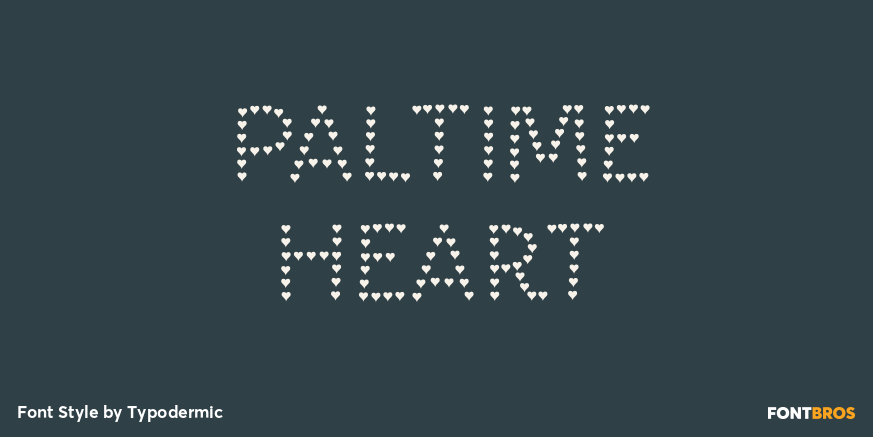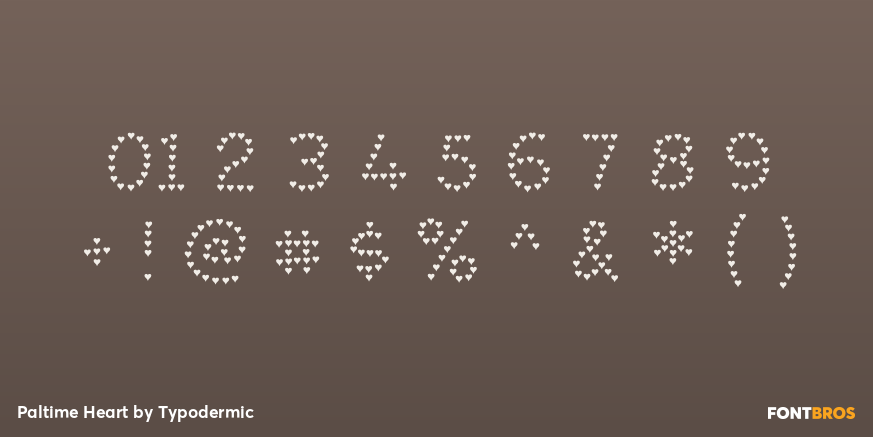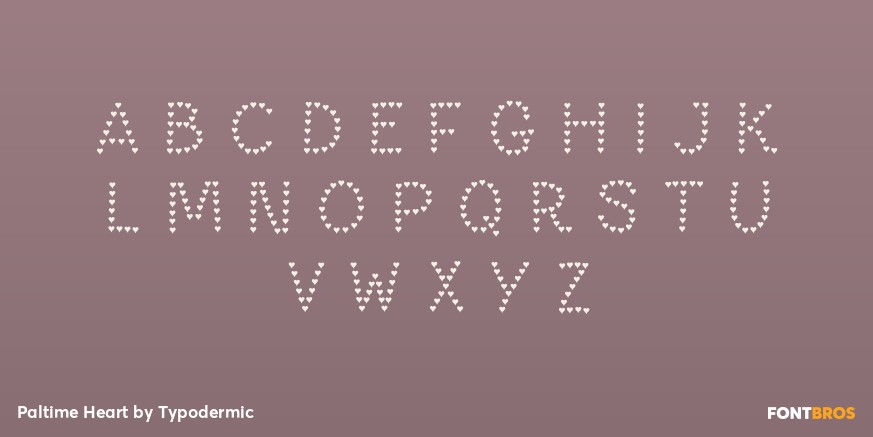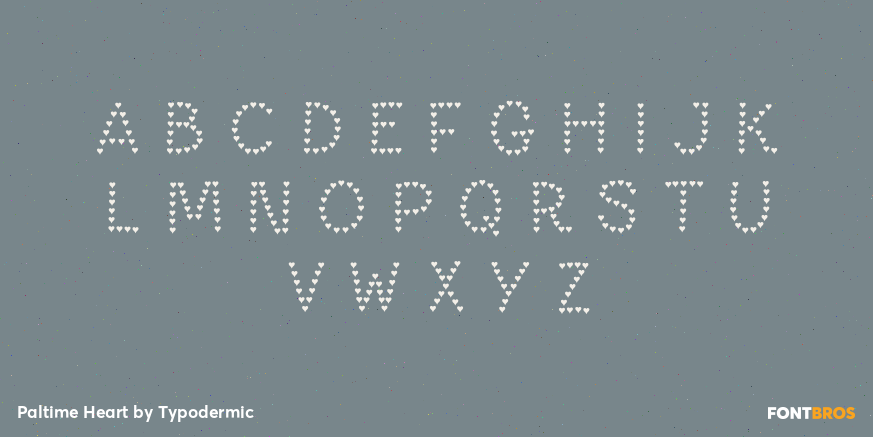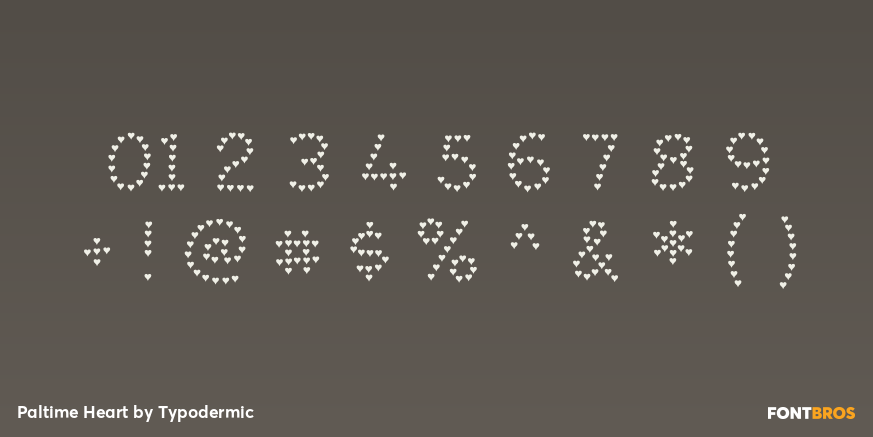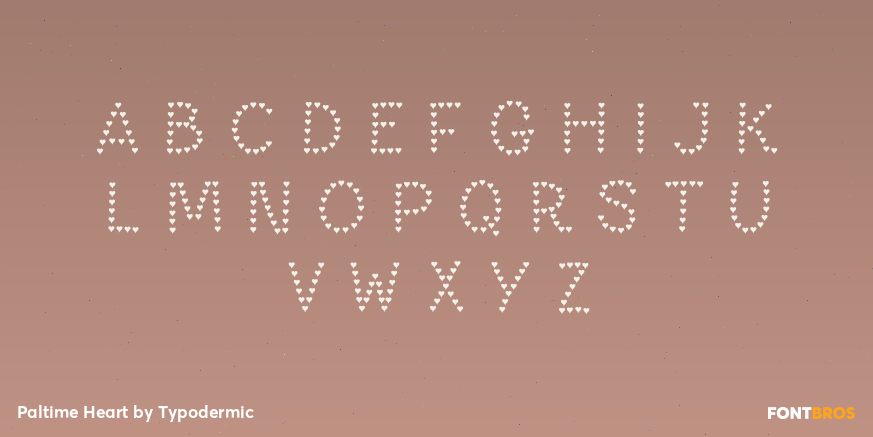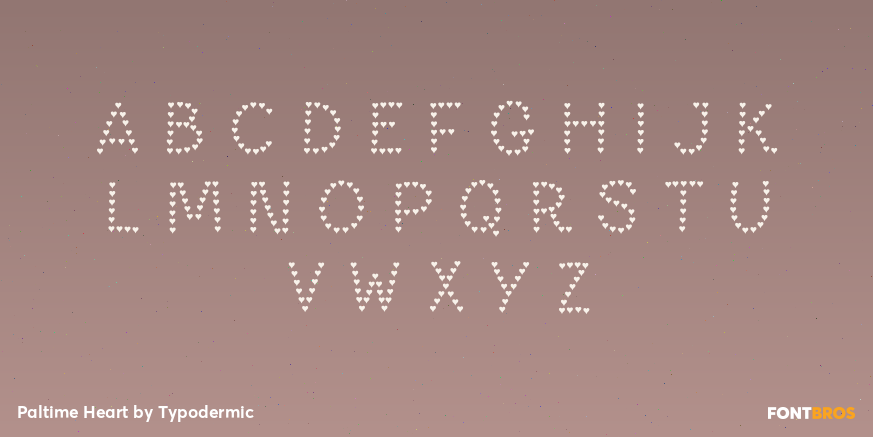
Paltime Heart
Buy NowPaltime Heart draws each all-caps character from a sequence of separate heart motifs rather than continuous strokes. The symbols preserve Paltime’s underlying letter proportions while leaving open space between them, creating a lighter and more playful layer than the solid-bodied styles. Heart registers with the matching openings in Paltime Love and can also be placed over Solid for a two-color heart-studded treatment.
Use Paltime Heart for romantic promotions, fan events, Valentine campaigns, pop-concert graphics, wedding entertainment, and themed resort or cruise programming. It works particularly well in animation, where the individual hearts can appear, pulse, or change color. Set it large enough for the motif to read unmistakably, and combine it with Love when a strong enclosing letterform is needed or with Solid when the background should remain fully covered.